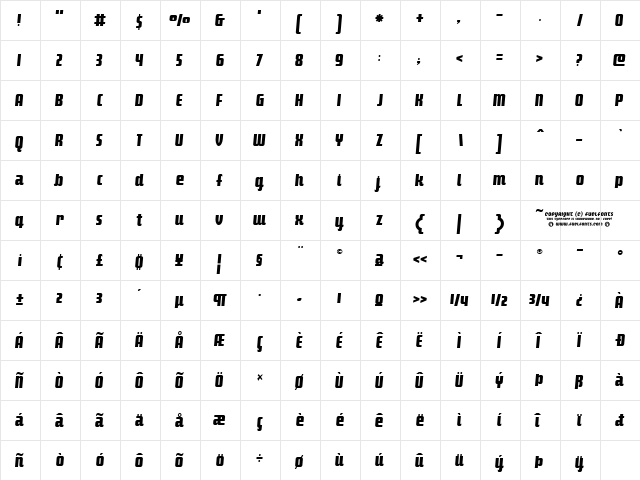
Makimango Oblique
Design Context for Makimango Typeface
Makimango offers clean, dependable letterforms without strong stylistic allegiance, making it a practical choice for designers who need flexibility. Its italic angle brings a sense of urgency and motion to the letterforms.
Pro Tip: Try Makimango for annotation and caption copy alongside an upright companion — the contrast in angle creates a dynamic but ordered typographic system.